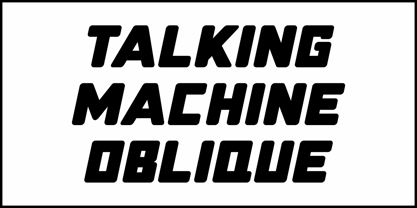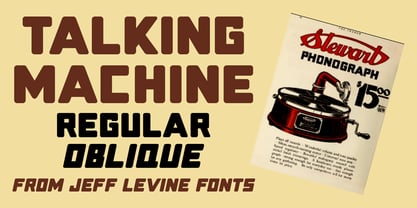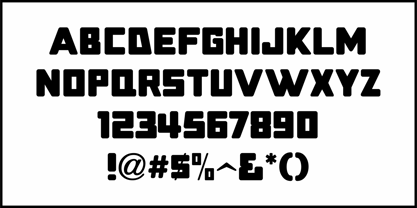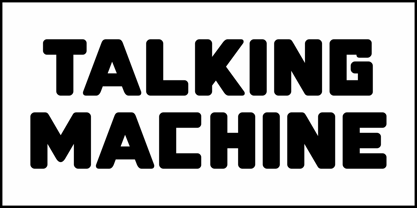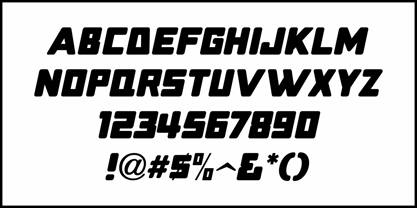
Talking Machine JNL
by Jeff Levine
The Talking Machine JNL Font Family was designed by Jeff Levine and published by Jeff Levine. Talking Machine JNL contains 2 styles and family package options. More about this family
The February 1920 issue of The Trader/The Canadian Jeweler carried an ad for the $15.00 Stewart Phonograph.
Under the logo for Stewart was the word "Phonograph" hand lettered with a round nib pen in an extra bold sans serif design with Art Nouveau influences.
This served as the model for Talking Machine JNL, which is available in both regular and oblique versions.
in the early days of the phonograph, many people nicknamed it a "talking machine" because it faithfully reproduced the human voice via recordings.